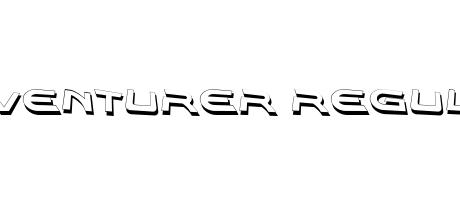
Adventurer
Adventurer Regular is a bold, futuristic display typeface. Its letters are sharply angular, giving a sense of speed and dynamism. The slightly skewed and shadowed effect adds a three-dimensional quality, making the font appear to leap off the page. It conveys a sense of adventure and cutting-edge technology.